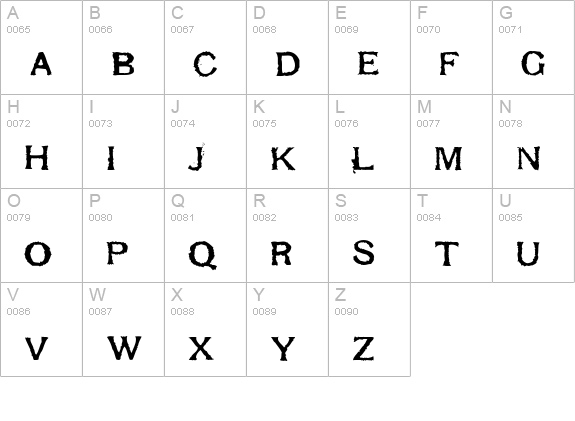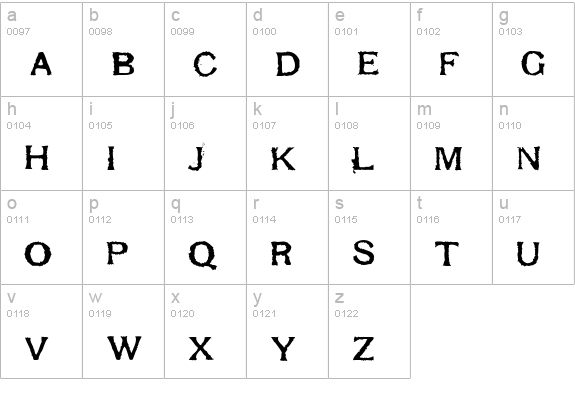
Respess Capitals Heavy Font Details
Respess Capitals Heavy is a heavy, high-impact variant in the Respess typeface family \xE2\x80\x94 well suited to high-impact headlines, posters, and display advertising.
Respess Capitals Heavy is a bold and powerful typeface that exudes a sense of confidence and authority. Its thick, chunky letterforms command attention and make a statement in any design project. This font is perfect for headlines, titles, and any other text that needs to grab the reader's attention. What sets Respess Capitals Heavy apart is not only its striking design, but also the fact that it is available for free. Yes, you read that right - this stunning typeface can be downloaded for free at FontsMarket.com. This means that designers, creatives, and anyone looking to add a touch of boldness to their projects can access this remarkable font without spending a dime. Whether you're working on a poster, a logo, a website, or any other design project, Respess Capitals Heavy will elevate your work to new heights. Its strong and commanding presence will ensure that your message is delivered with impact and clarity. With Respess Capitals Heavy, you have the freedom to unleash your creativity and make a bold statement. So why wait? Head over to FontsMarket.com and download this incredible font for free today.